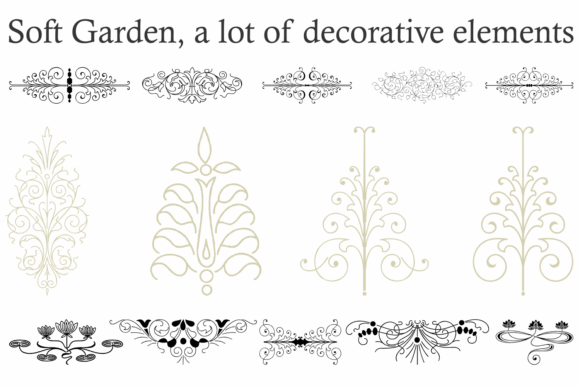
Introducing Soft Garden Family Font – a captivating collection of ornaments, now available in font format! Embark on a whimsical journey with these enchanting and versatile designs that will ignite your creativity.
Crafted with meticulous attention to detail by Intellecta Design, Soft Garden Family Font invites you to add a touch of charm and artistry to your projects. From intricate flourishes to delicate borders, this collection offers an endless array of possibilities to adorn your creations.
Whether you're designing eye-catching invitations, personalizing stationery, or crafting unique works of art, Soft Garden Family Font has got you covered. Its elegant and timeless designs effortlessly complement any style, from classic to contemporary.
Imagine the delight of adding a touch of whimsy to your children's books, creating enchanting scrapbook pages, or personalizing journals with these enchanting ornaments. The possibilities are limitless!
And here's an extra treat – Soft Garden Family Font comes with a fantastic bunch of EPS ornaments, meticulously crafted to elevate your designs to new heights. These versatile ornaments are perfect for adding exquisite embellishments to your projects, whether you're designing logos, website graphics, or creating custom invitations.
Whether you're a seasoned designer or just starting to explore the world of typography, Soft Garden Family Font is an essential addition to your digital toolbox. Its versatility, charm, and endless possibilities will inspire you to create truly captivating designs that will leave a lasting impression.
So, dive into the enchanting world of Soft Garden Family Font today and let your creativity soar!